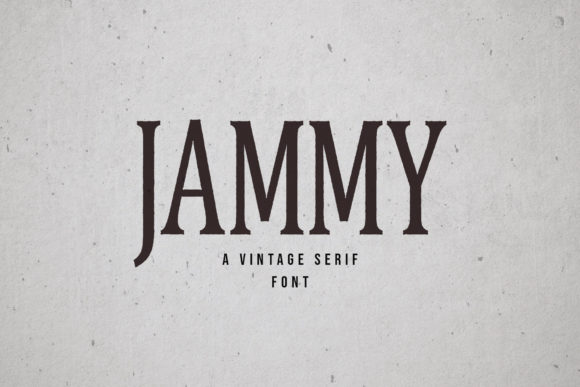
Prepare to be captivated by Jammy, a vintage serif font that will ignite your creativity and elevate your designs to new heights. Picture this: a font so mesmerizing, it transforms your words into stunning works of art.
Jammy's timeless elegance is a perfect match for a wide range of projects, from heartfelt wedding invitations to eye-catching branding. Its versatility knows no bounds, adding a touch of sophistication to product packaging, inspiring quotes, and even stylish t-shirts.
Imagine the joy of creating a wedding sign that reflects the love and happiness of your special day. Jammy's delicate curves and flowing lines will add a touch of romance and nostalgia to your cherished memories.
Unleash your inner artist and design logos that exude both charm and professionalism. Jammy's graceful presence is sure to make a lasting impression on your audience.
Elevate your designs with Jammy, the font that embodies timeless elegance and endless possibilities. Let your creativity soar and experience the joy of transforming ordinary words into extraordinary works of art.